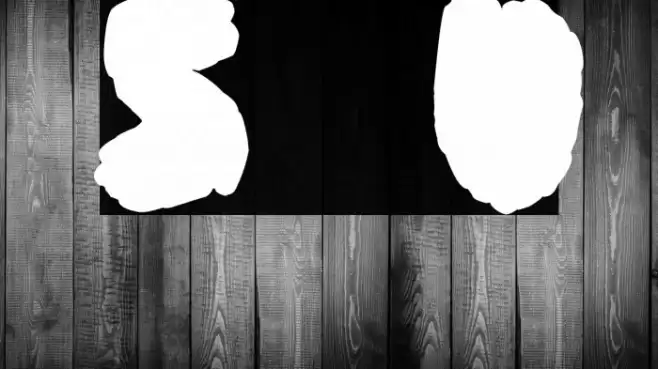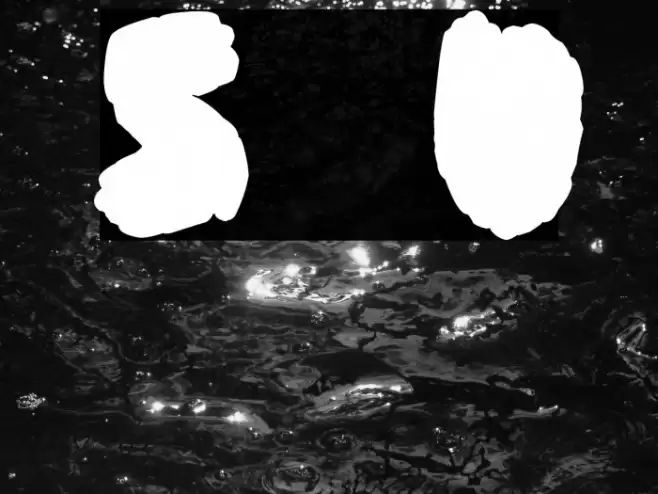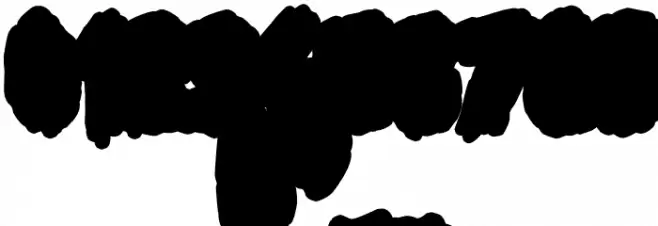
Shadow of the deads Under Font
Shadow of the deads Under Description
This font features a bold, dramatic style with thick, uneven strokes that create a shadowy, almost eerie appearance. The characters are heavily weighted, giving them a strong presence on the page. The edges are irregular, adding to the font's unique, hand-drawn aesthetic. This style is reminiscent of horror or thriller themes, making it ideal for projects that require a sense of mystery or intensity. The uppercase and lowercase letters maintain a consistent style, while the numbers and special characters are equally bold and impactful.
A bold, shadowy font with irregular, dramatic strokes from Regular fonts.
- Proposed Projects: Ideal for horror-themed posters, Halloween invitations, or any project needing a dramatic, intense font.
- Character Spacing: Tight
- Use Case: Headlines, Posters, Themed Events